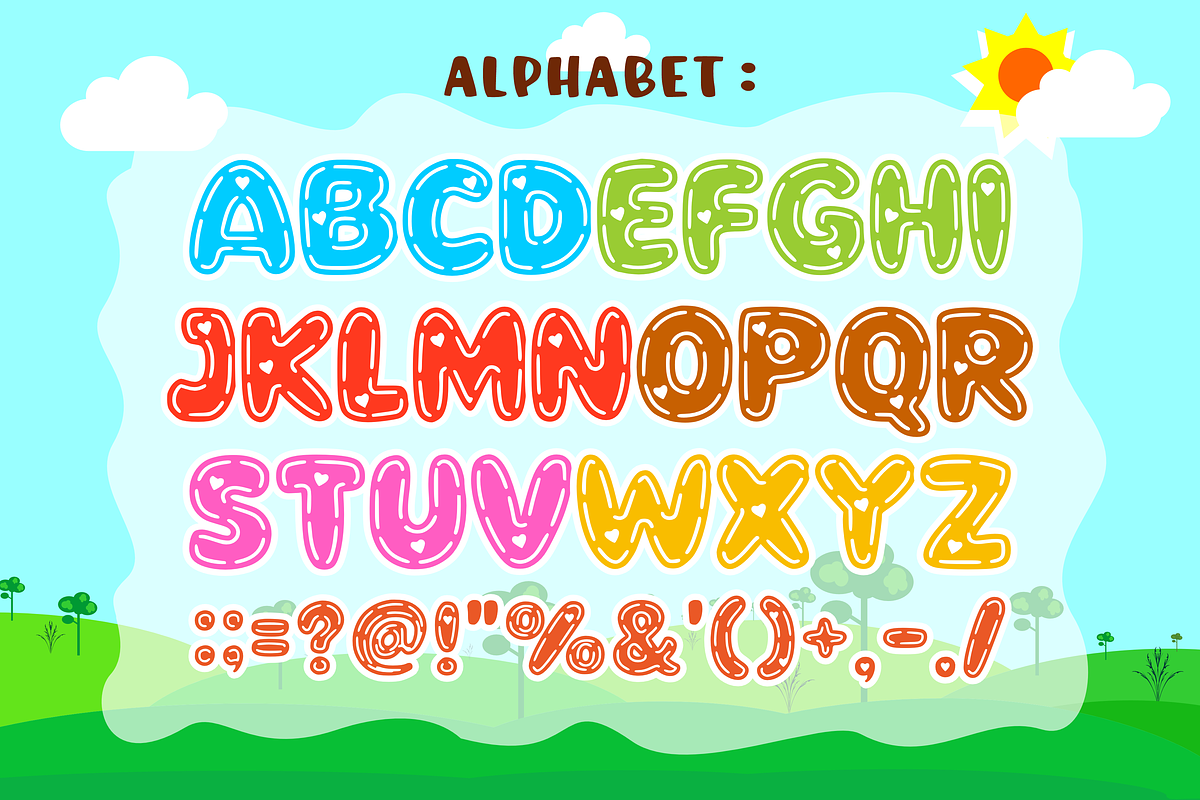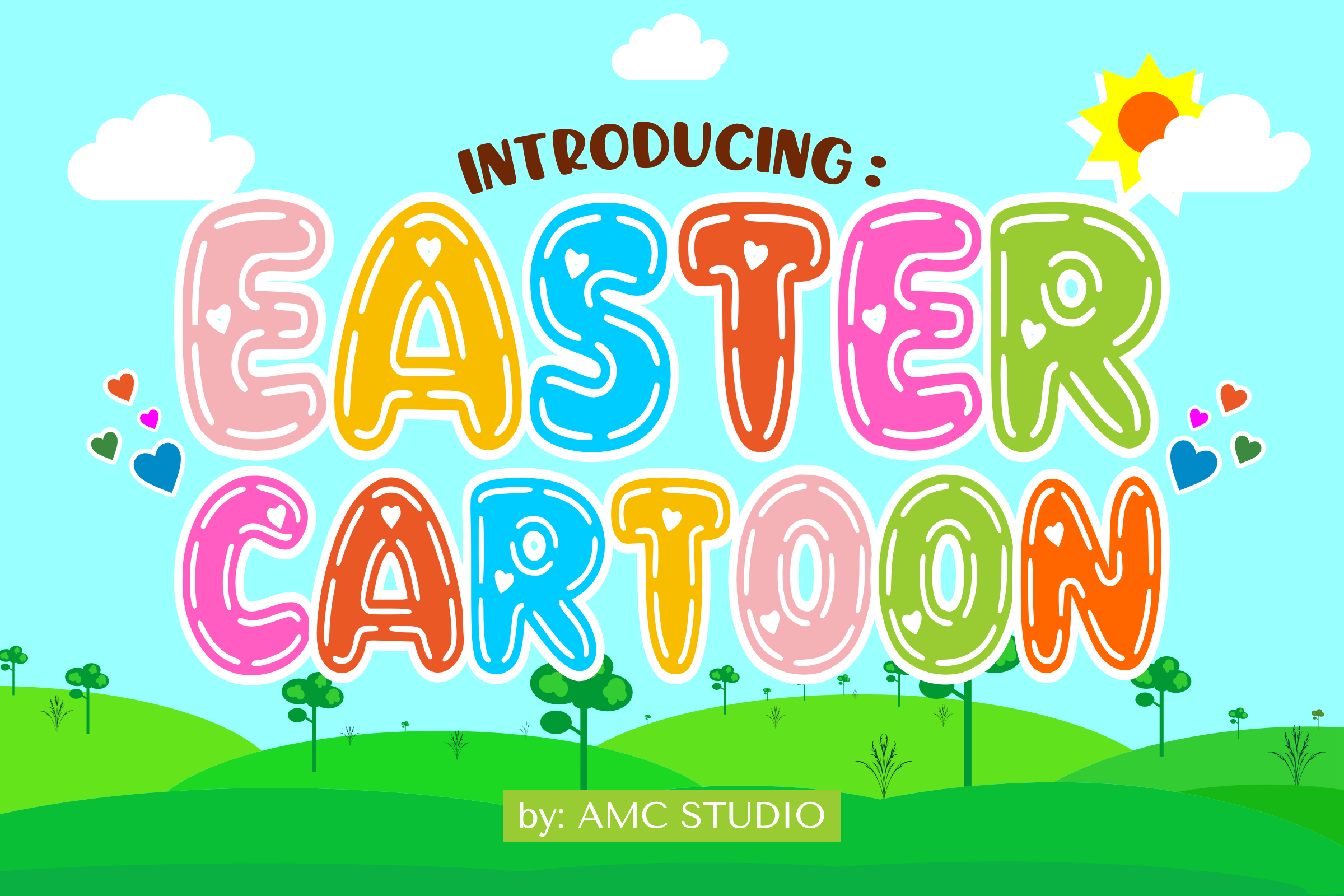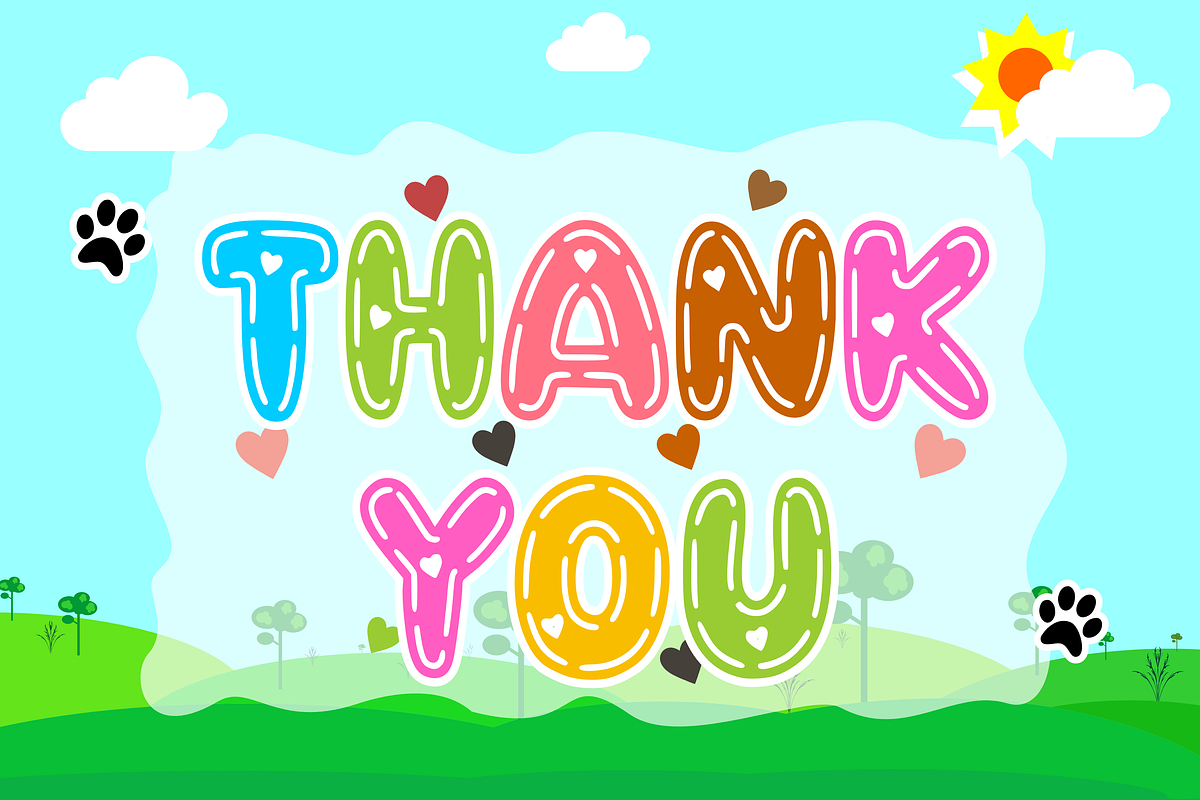
Easter Cartoon - Kids Font Types
Unleash the spirit of Easter and the joy of spring with the unique charm of the Easter Cartoon font! Each character exudes the essence of retro nostalgia, adorned with charming, cute love lines. This is not just a typeface; it is an artistic celebration ideal for a children’s alphabet, capturing the joy and wonder of spring and the joyful holiday of Easter. Experience the alluring charm of Easter Cartoon; this is where nostalgia meets imagination.